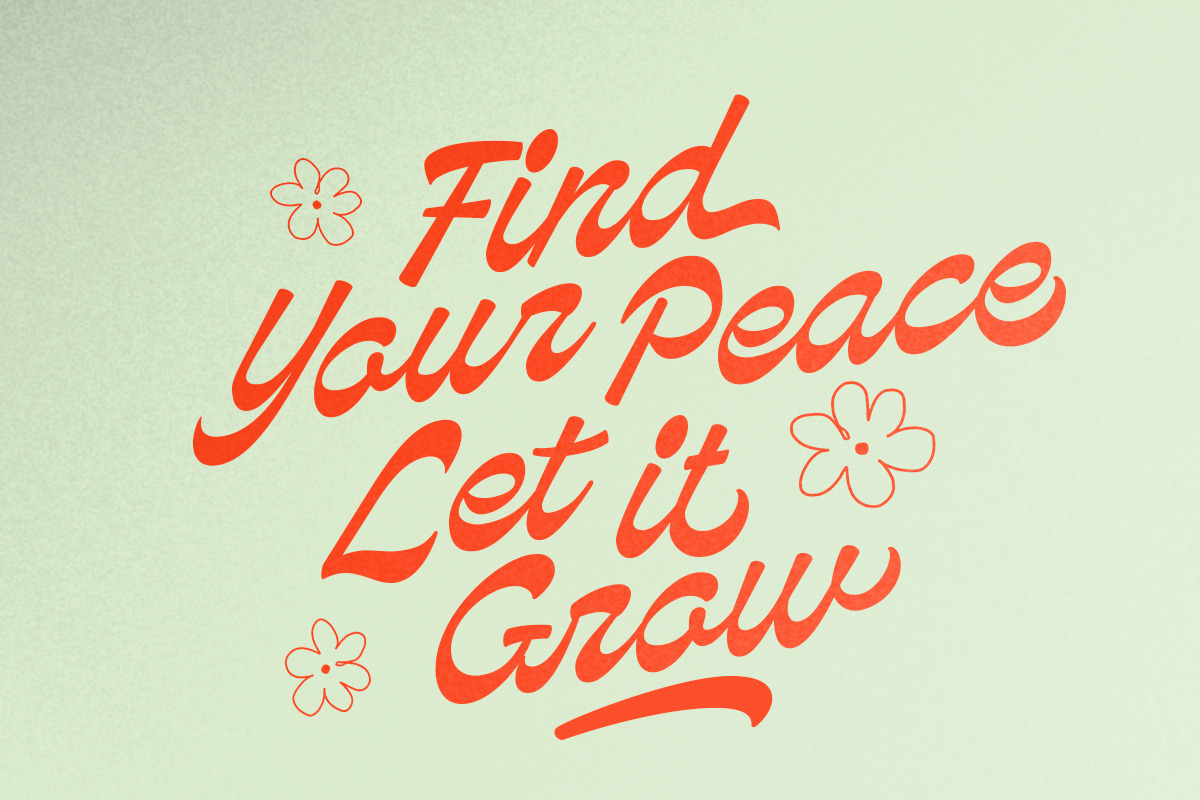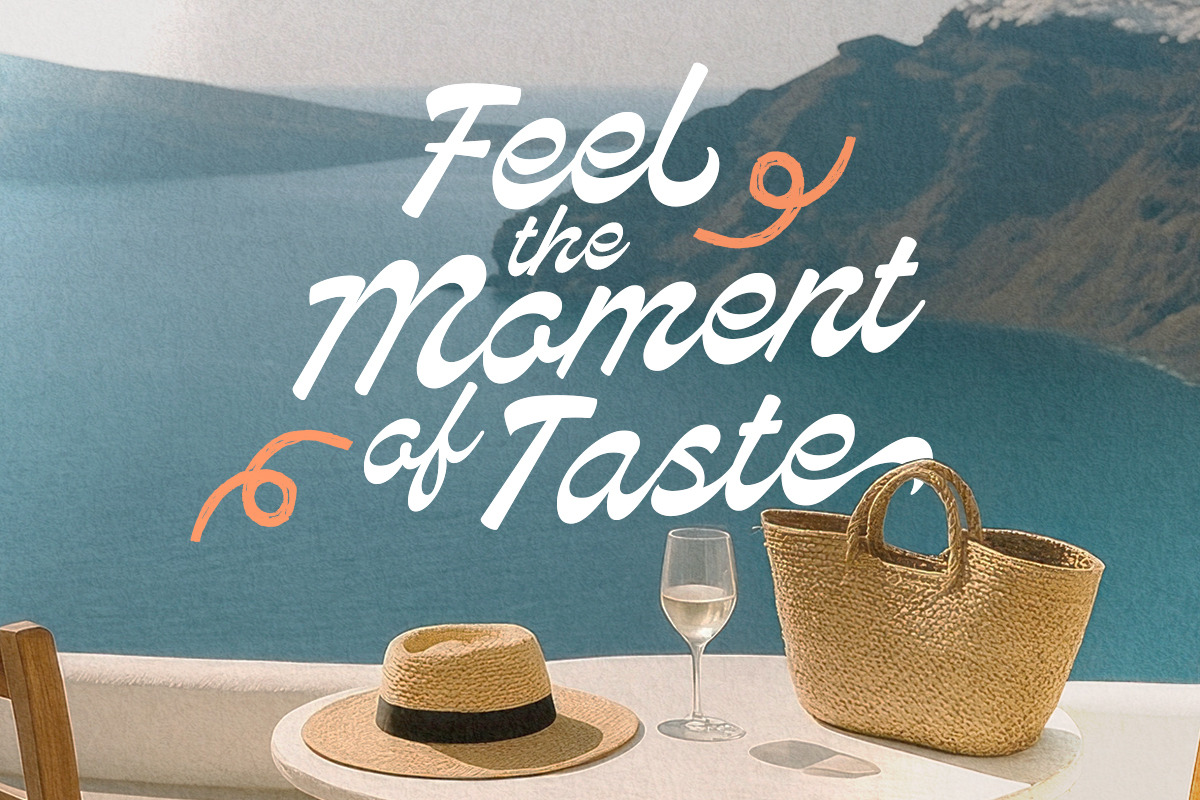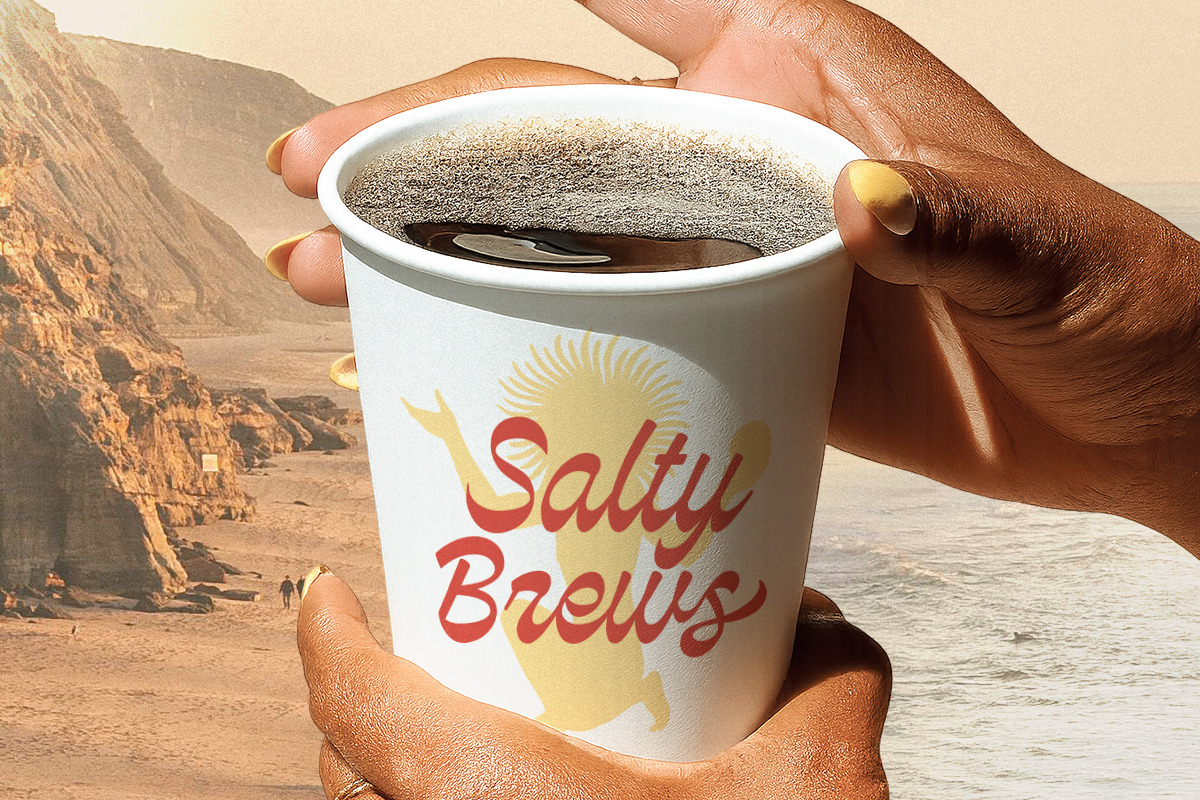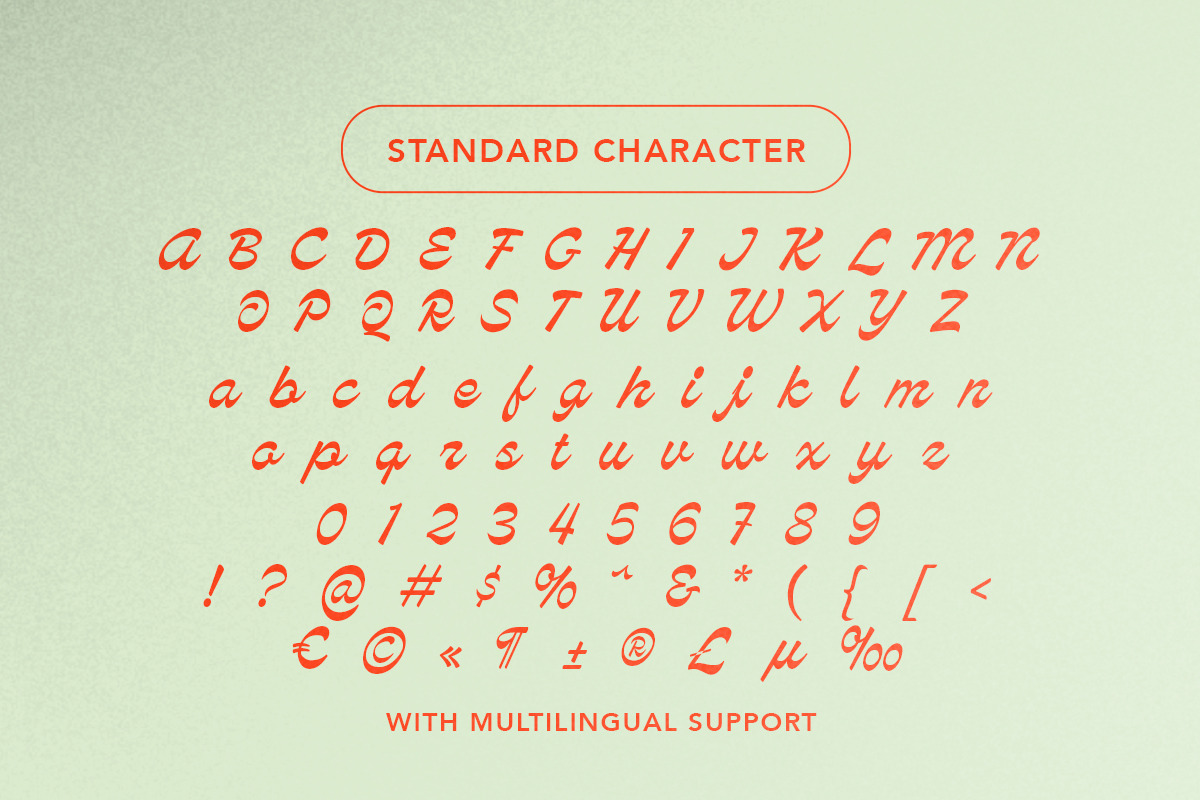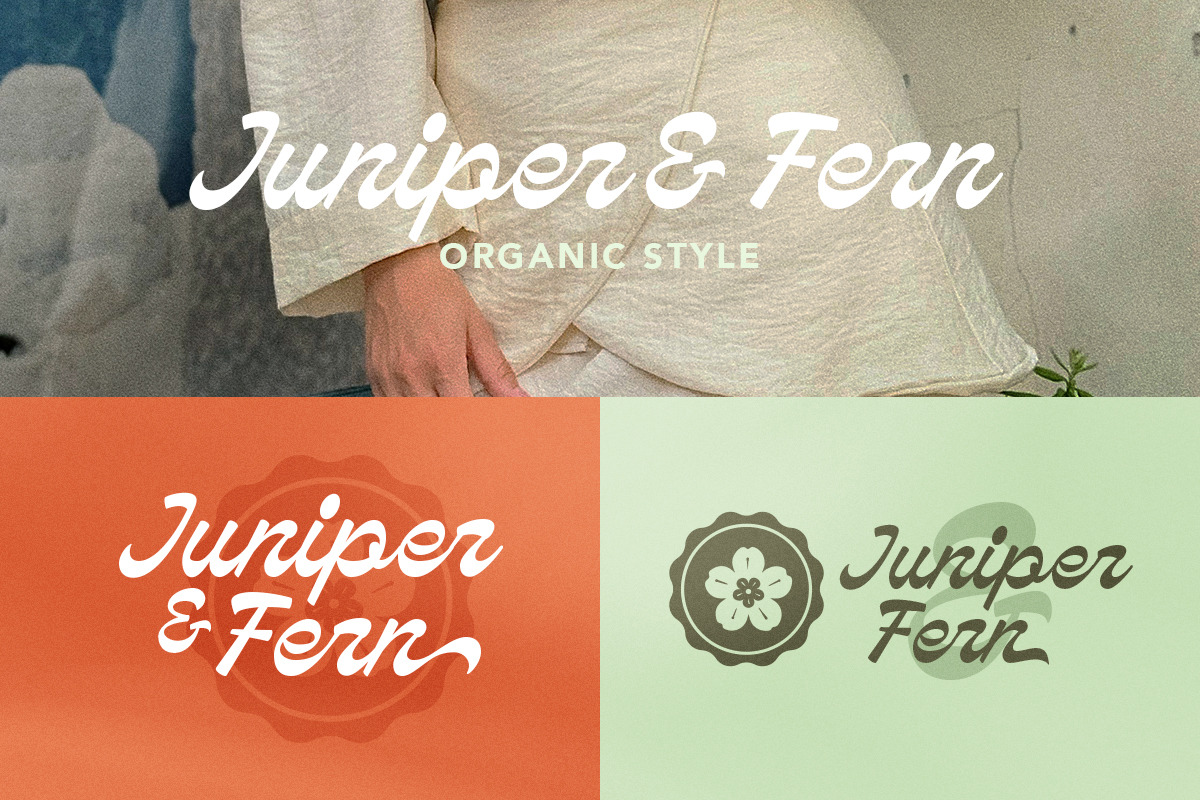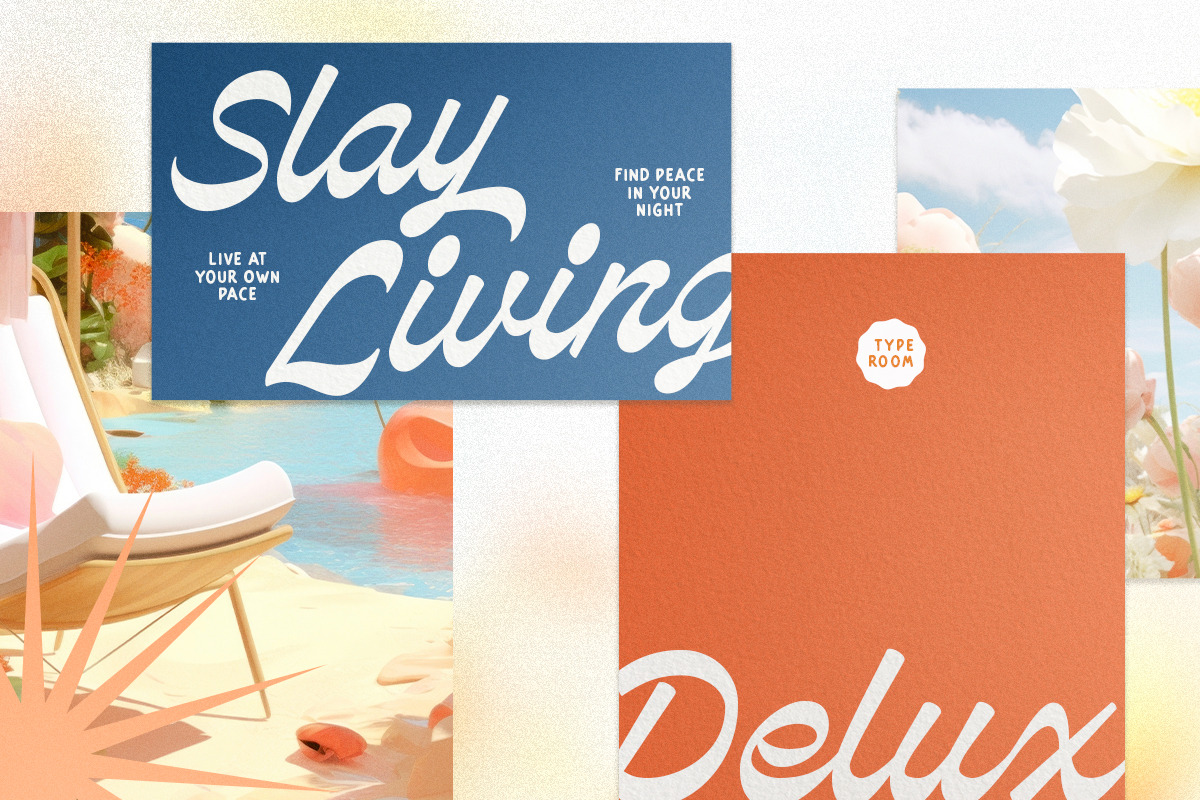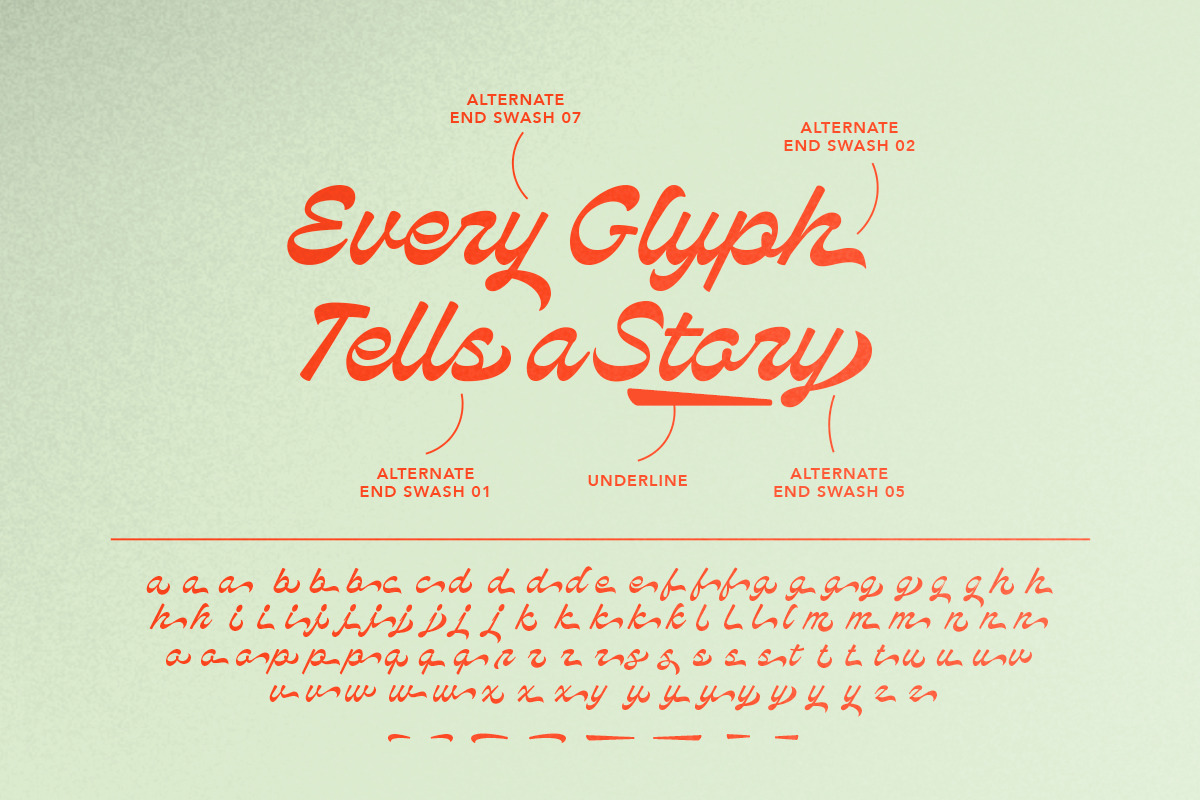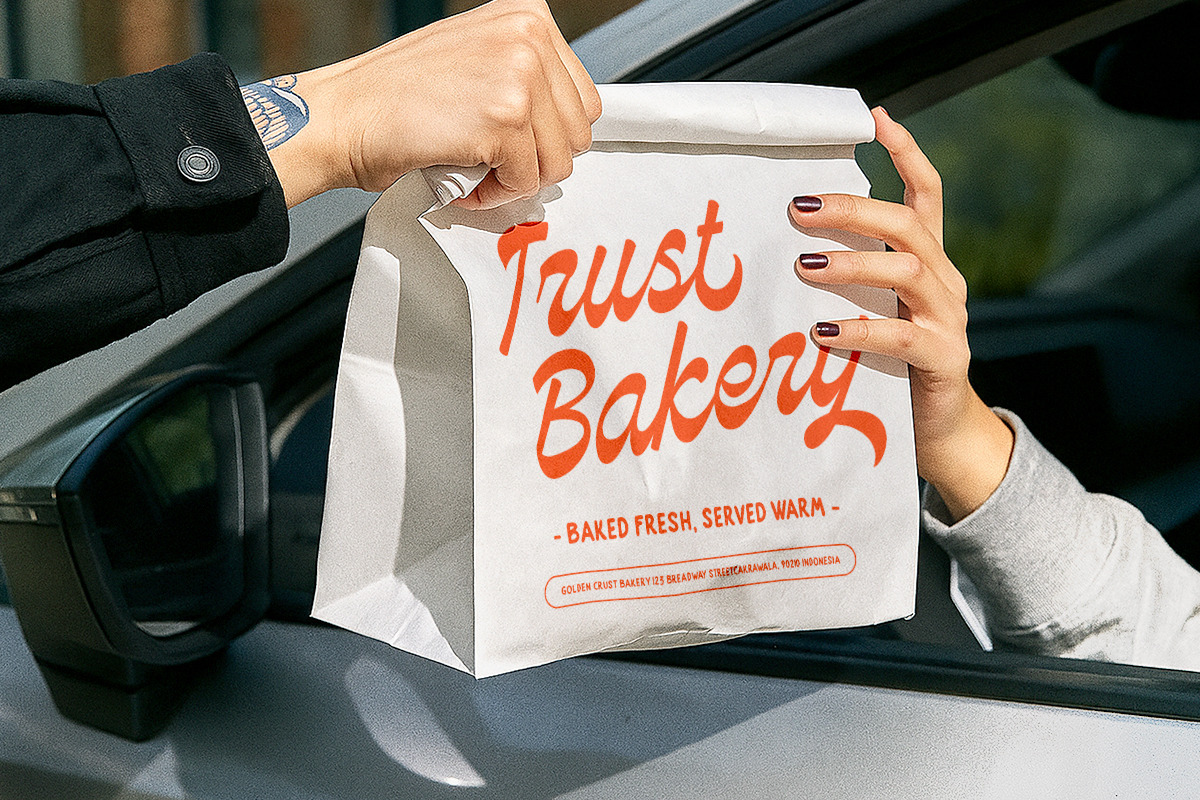
Crudents - Bold Display Script
Crudents is a bold display script with slightly reverse contrast looks. You can use this font for many purposes such as logotype, quotes, branding, or your wedding invitations. With the retro and vintage looks, this font also suitable for old poster themes. Crudents also have many alternates and underline that you can use to make your project more stunning. This font also support multi language.